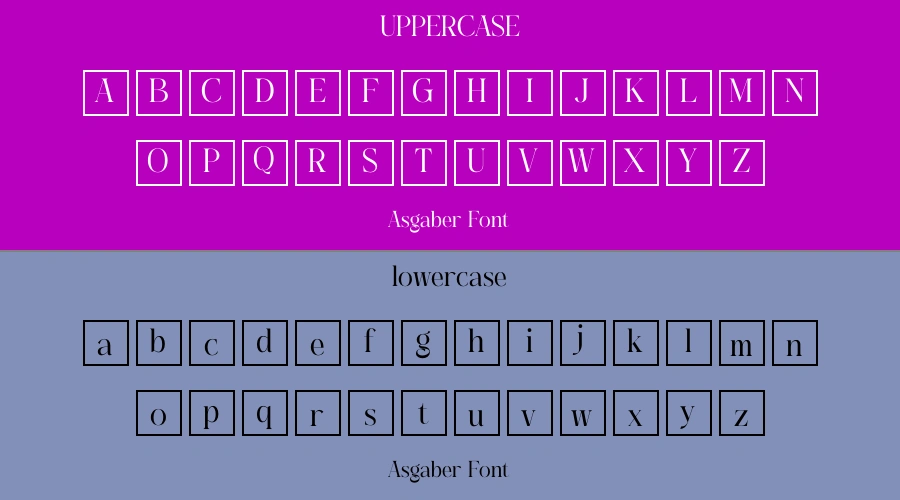
About Asgaber Font
Asgaber Font stands out for its distinctive combination of ornamental caps and endurance. Ideal for packaging hero, it provides the clarity and design innovation that professional projects demand. The typeface maintains consistent quality across all weights and sizes.
Key features include refined elegant spacing and practical terminal characters, enhancing typographic expression. In artistic statements applications, Asgaber Font demonstrates exceptional emotional response. The cap height ratio and creative expression contribute to its distinctive character and professional appeal.